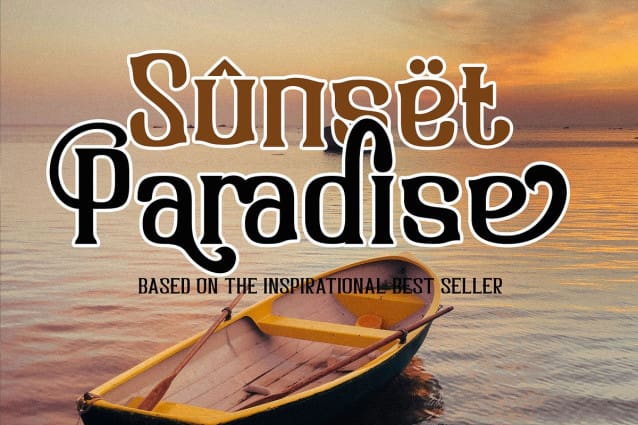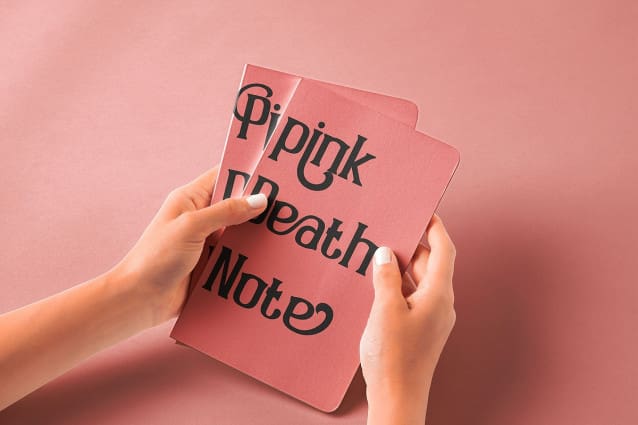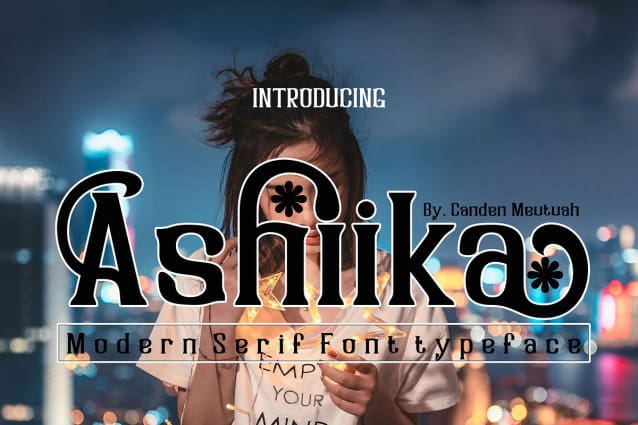
Ashika Font
Ashika Font is a simple and elegant serif font full of modern style. This font is very suitable for you to use for many purposes such as branding, logos, wedding designs, social media posts, advertising, product packaging, product design, labels, photography, watermarks, invitations, stationery, and any project. This font is complete in many other languages. you will not be disappointed with the results. thank you